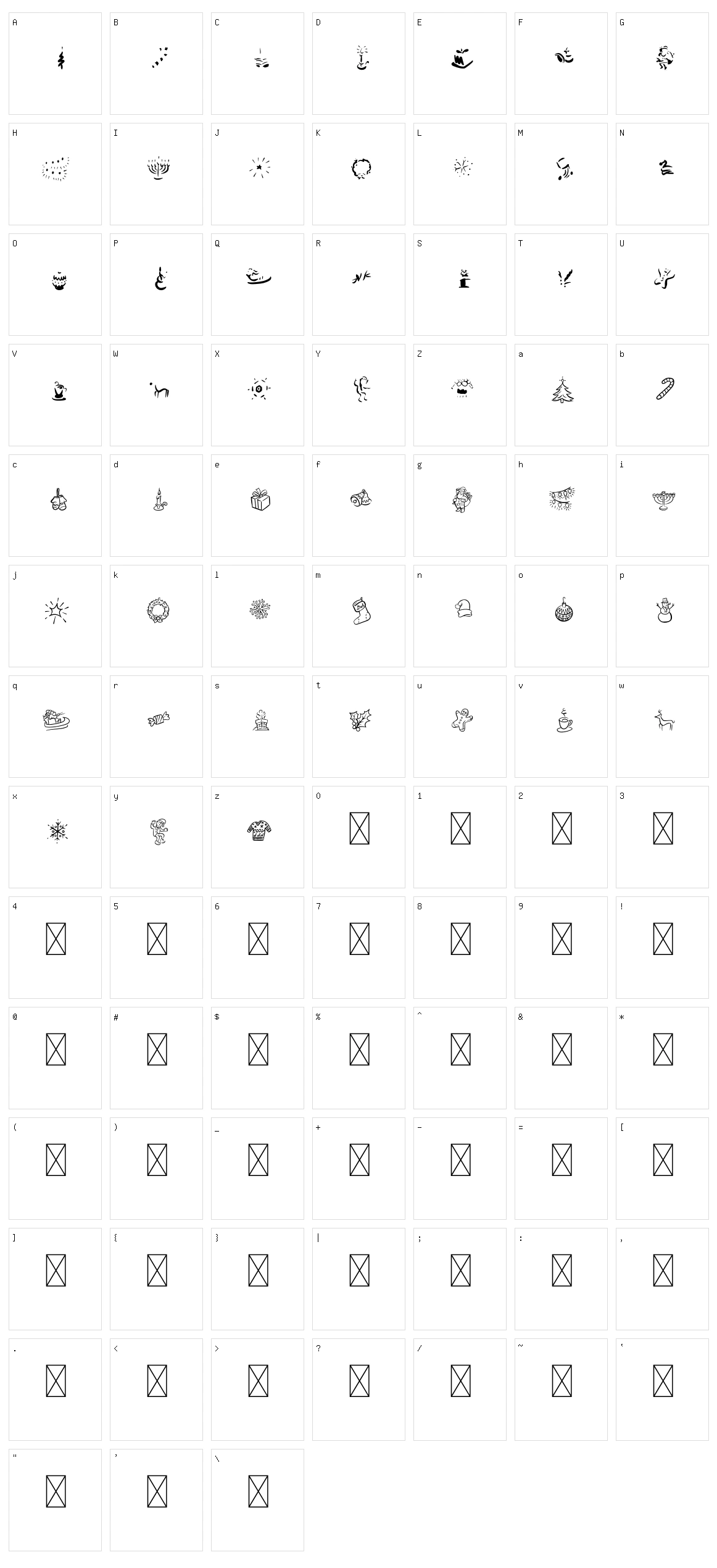
The free font Kringles is carefully designed by Field 2 Design, showcasing a thoughtful balance of creativity and usability and falls under the Christmas font style. When you download the ZIP file, it contains only 158.3 KB of font files, making it lightweight and quick to download. Please review the license details below to understand permitted usage and distribution rights. If license information is not available, we recommend using this font for personal projects only or contacting the author directly for commercial usage permissions.